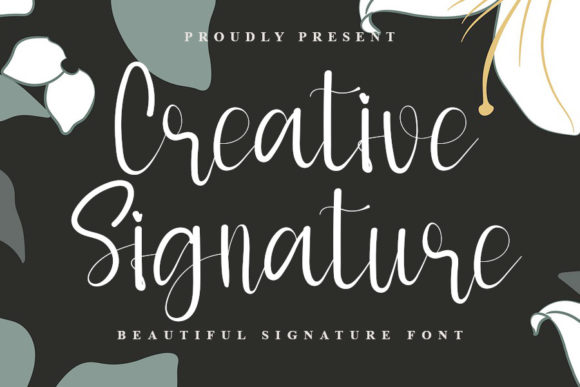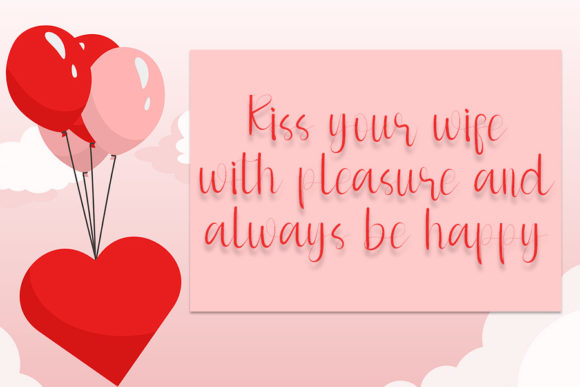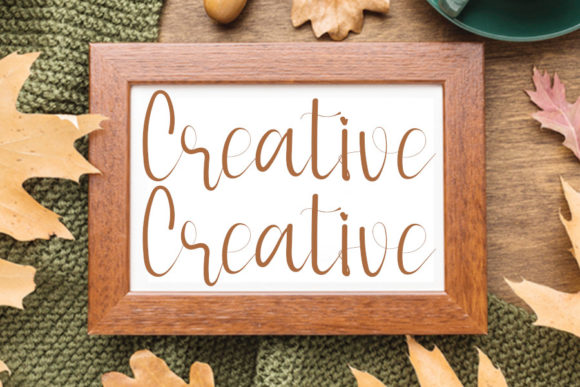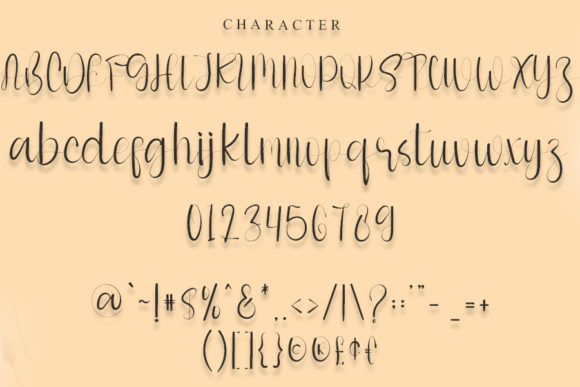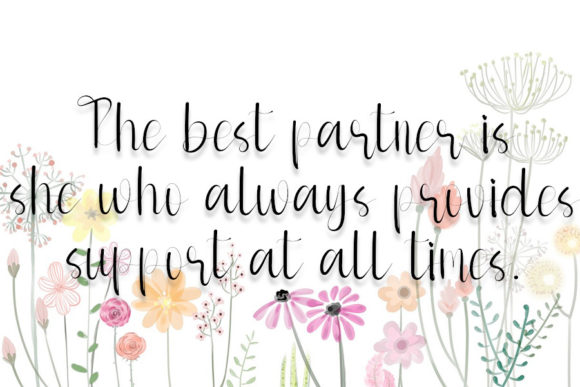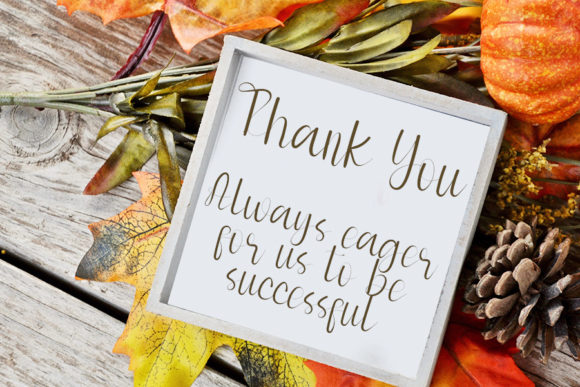
Creative Signature Font
Creative Signature is a unique and elegant handwritten font that adds a touch of beauty and sophistication to a variety of designs. With its personalized style, this font is particularly well-suited for projects that require a distinct and personalized touch, such as wedding invitations, thank you cards, greeting cards, logos, and more.
The beauty of Creative Signature lies in its handcrafted appearance and the personal touch it brings to your designs. Each letter is carefully crafted, creating an organic and artistic look that adds elegance and authenticity to your creations. Whether you’re designing for weddings, special events, or simply want to infuse your designs with a personal touch, Creative Signature is a wonderful choice.
The versatility of Creative Signature allows it to shine in a wide range of projects. It beautifully complements wedding invitations, adding a touch of elegance and sophistication. It enhances thank you cards and greeting cards, conveying heartfelt messages with style. And it brings a sense of refinement to logos and branding materials, making your business stand out.
Embrace the unique and elegant nature of Creative Signature, and let it elevate your designs with its personalized style. Incorporate this font into your projects, and you’ll see how it adds a touch of beauty and authenticity.